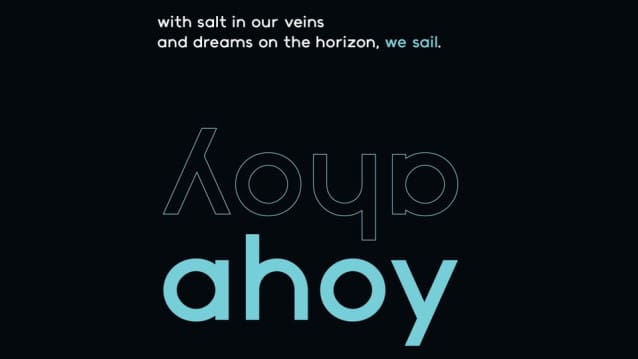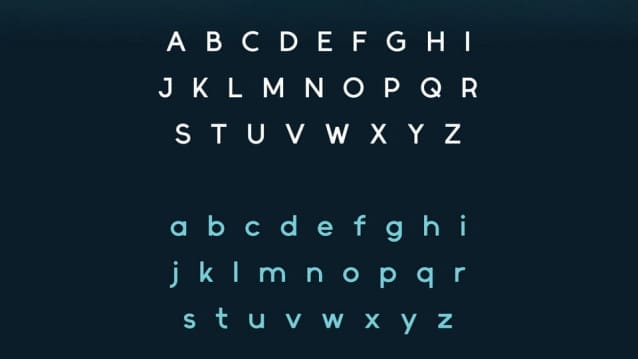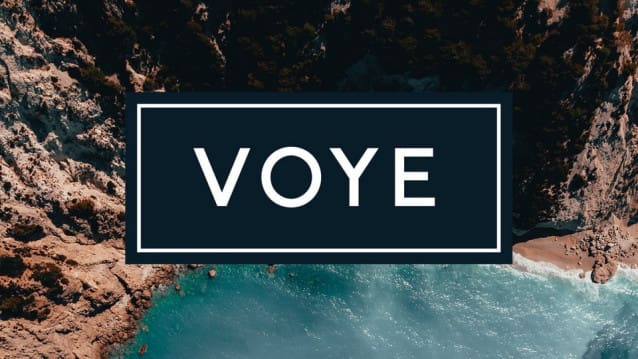
Voye Font is the first typeface. It was created from scratch and took me 3 weeks to complete, drawing inspiration from simplicity and geometric sans serif typefaces. This font is well-suited for headlines, display text and small paragraphs.